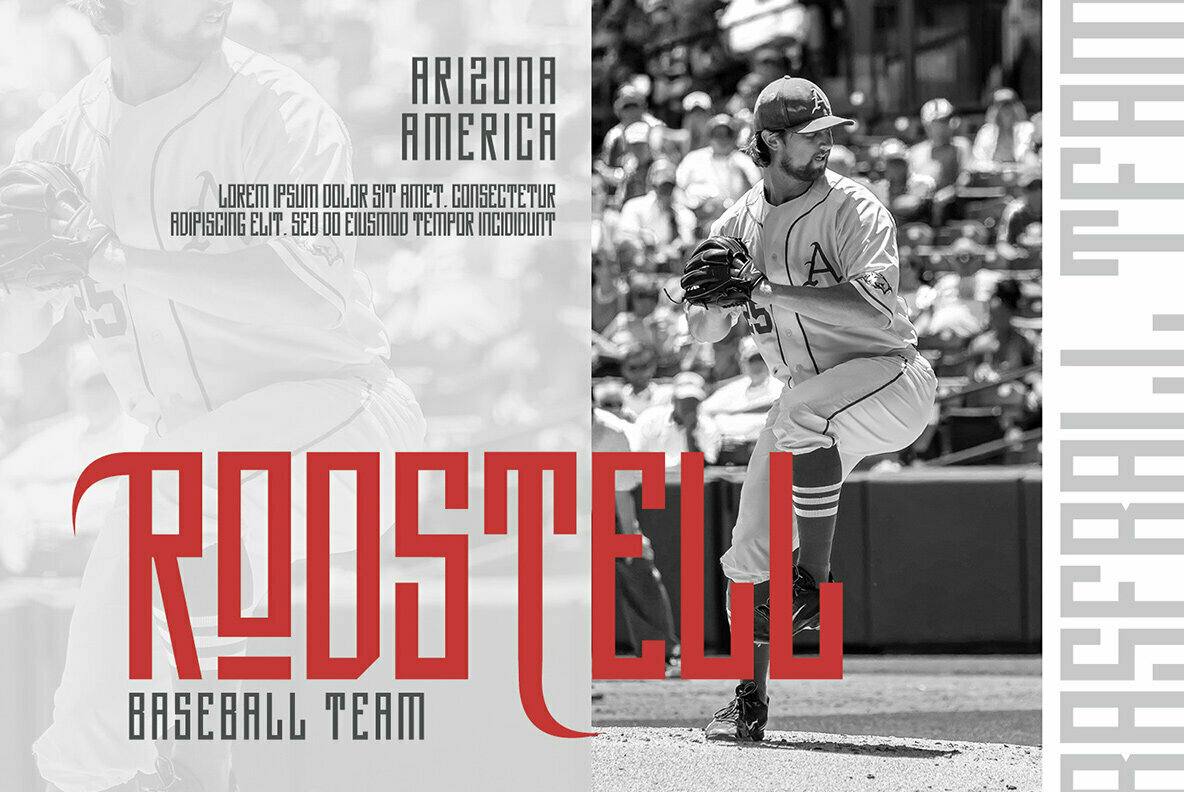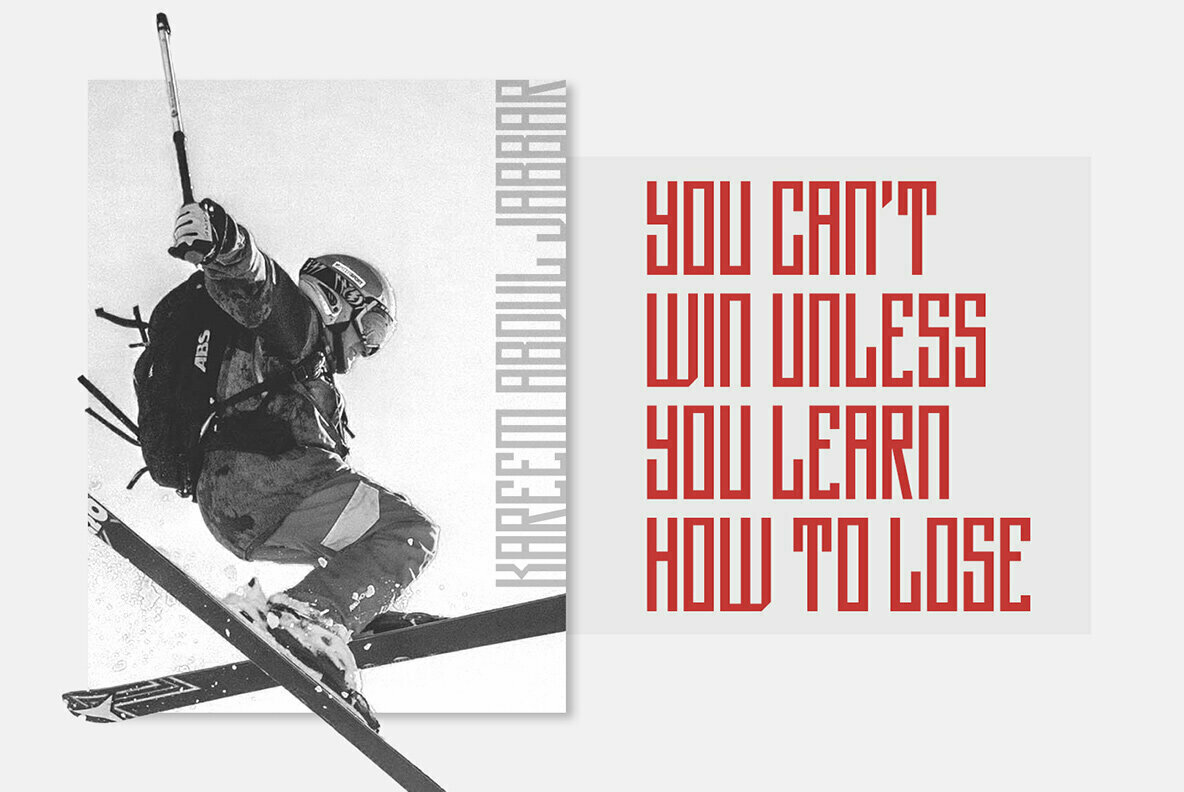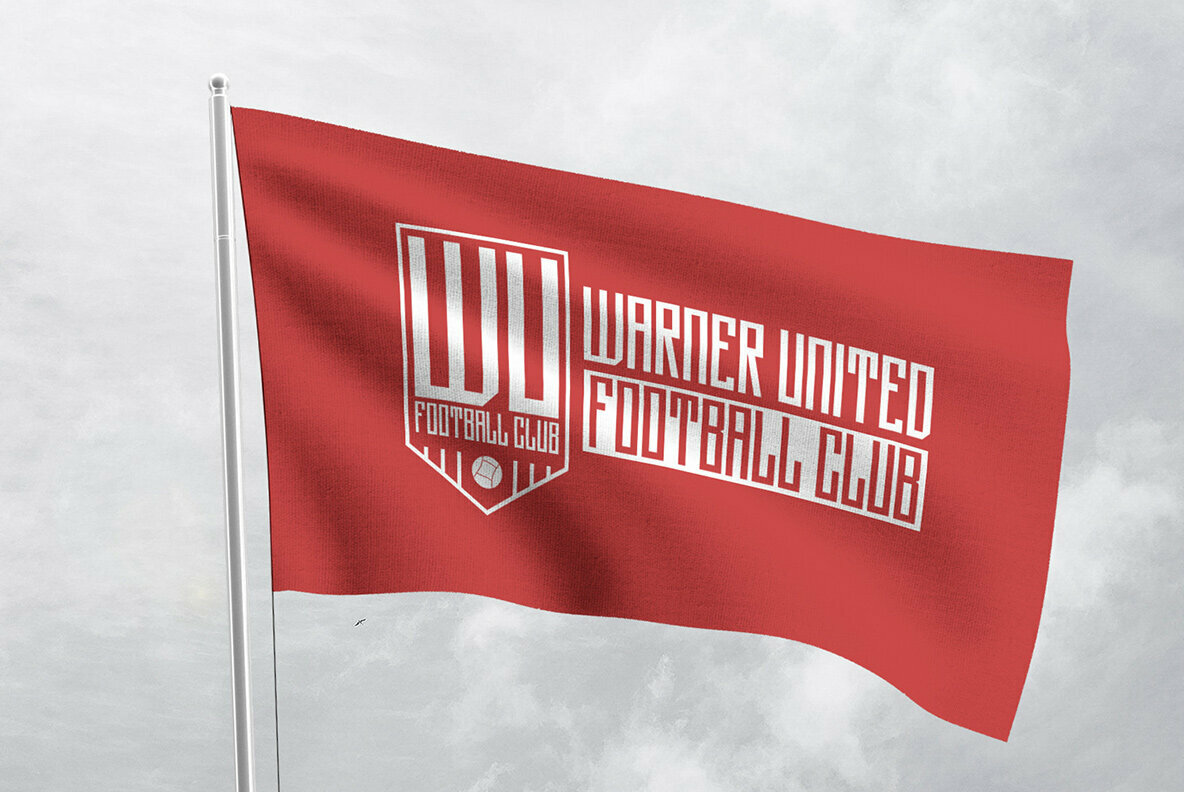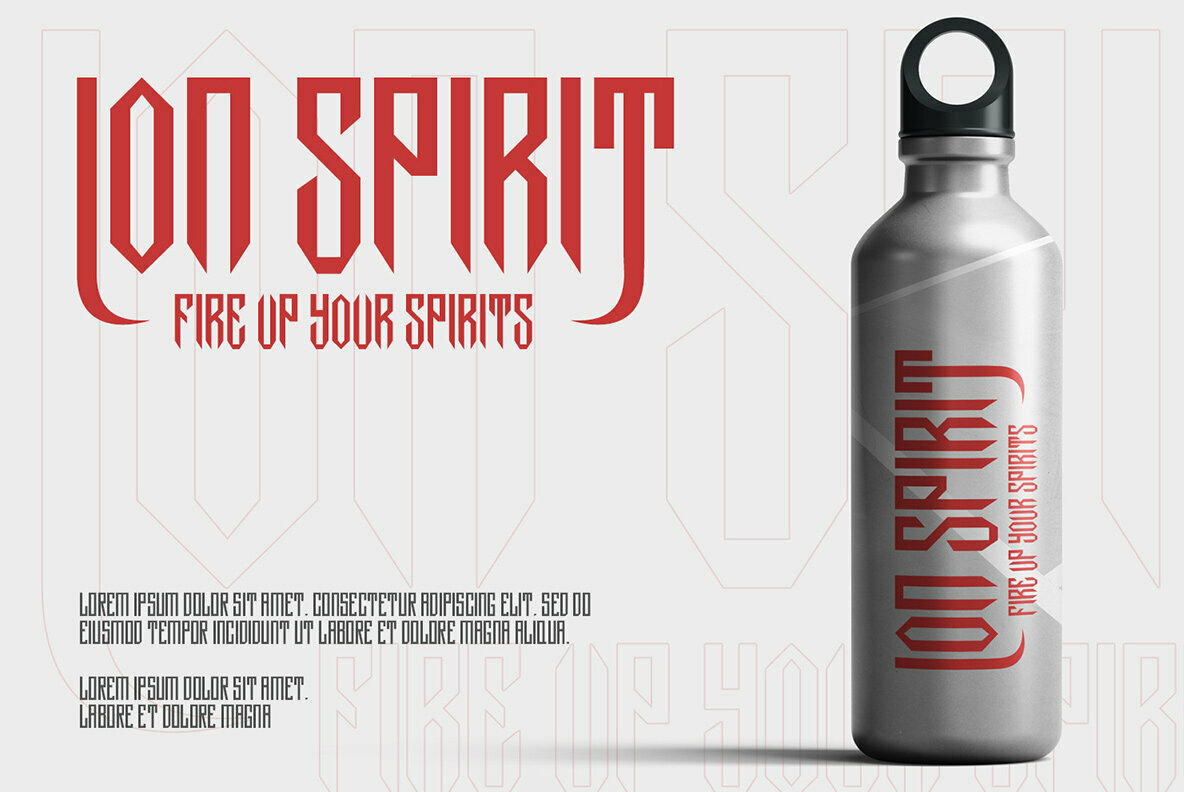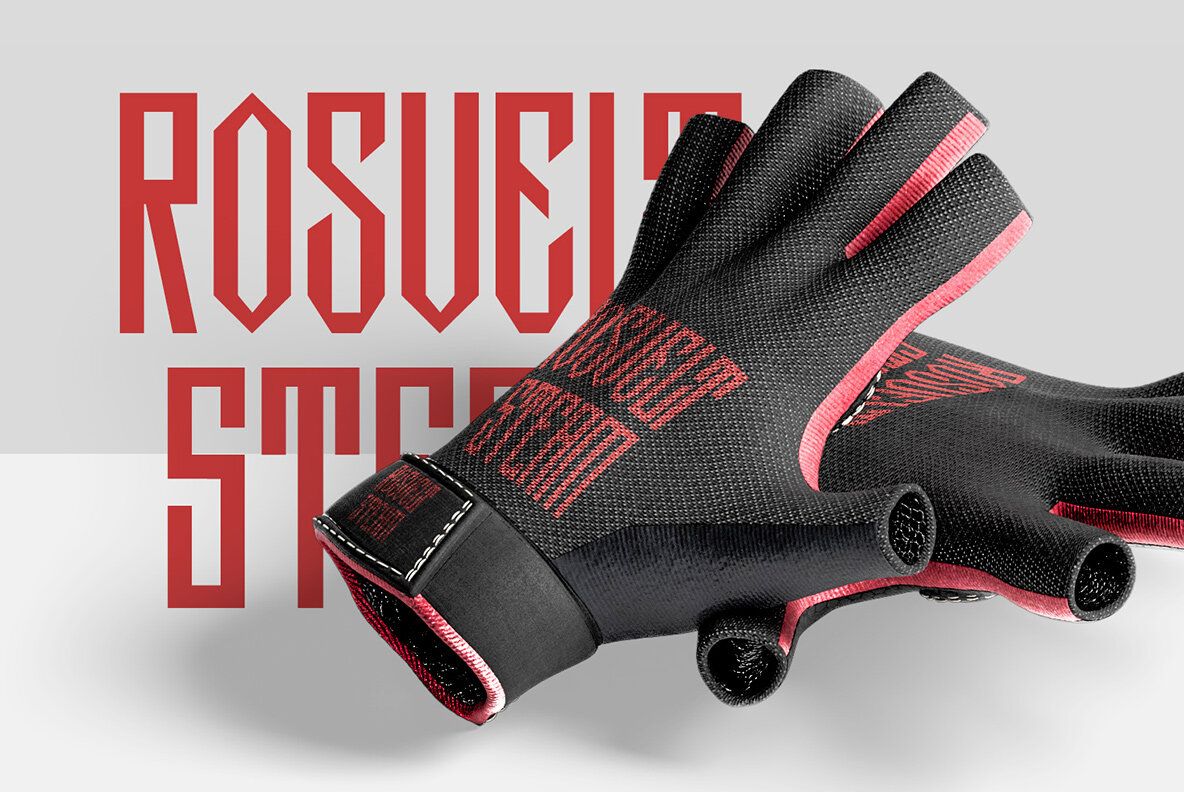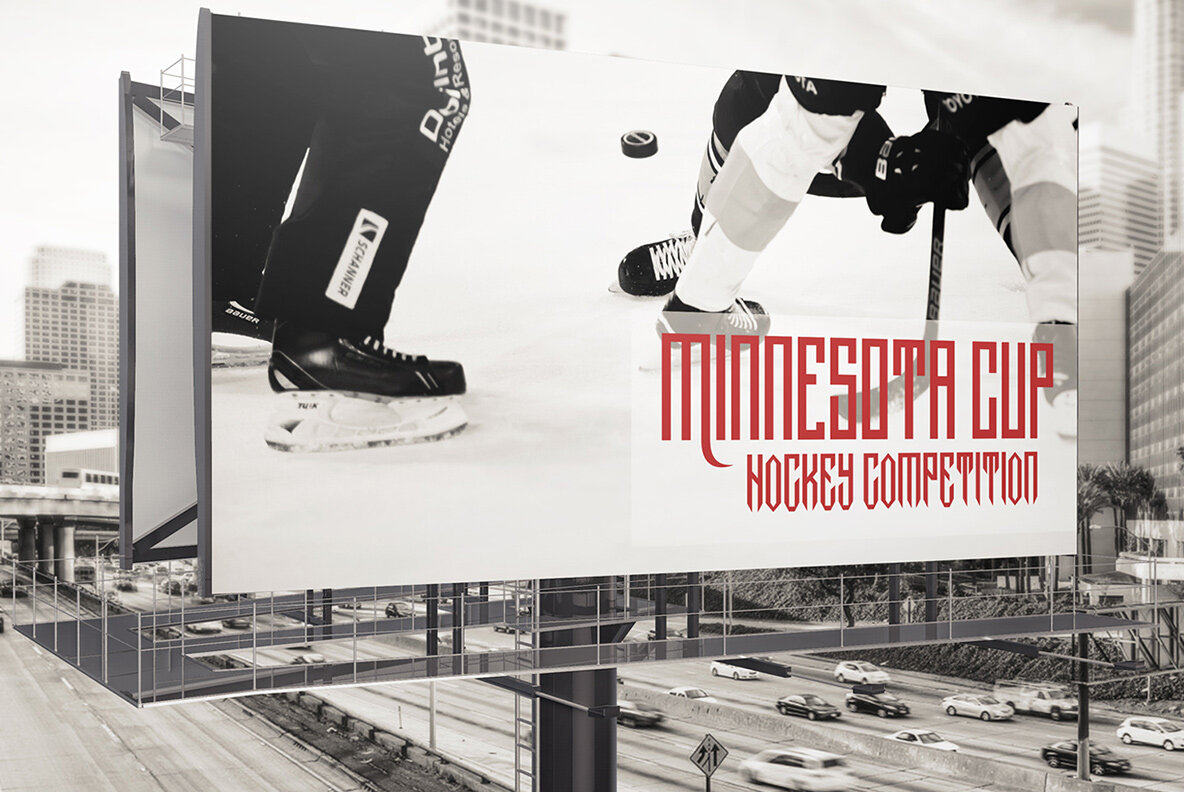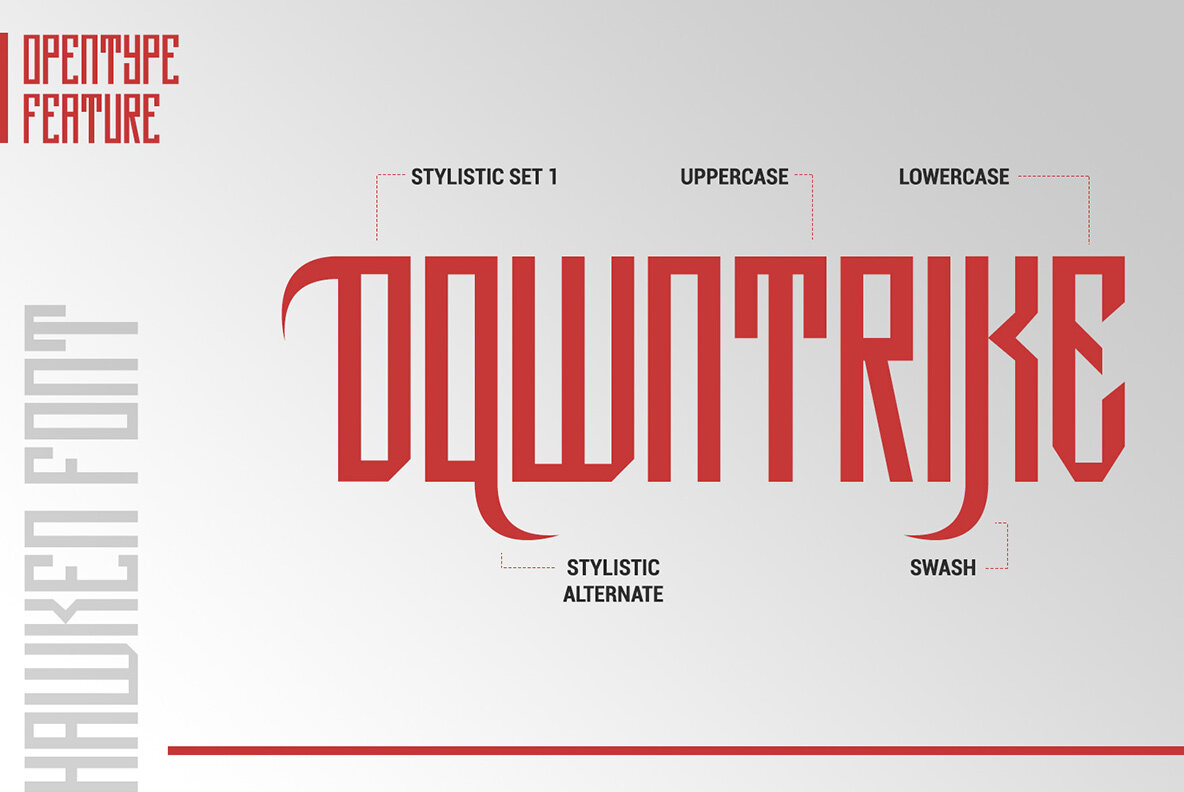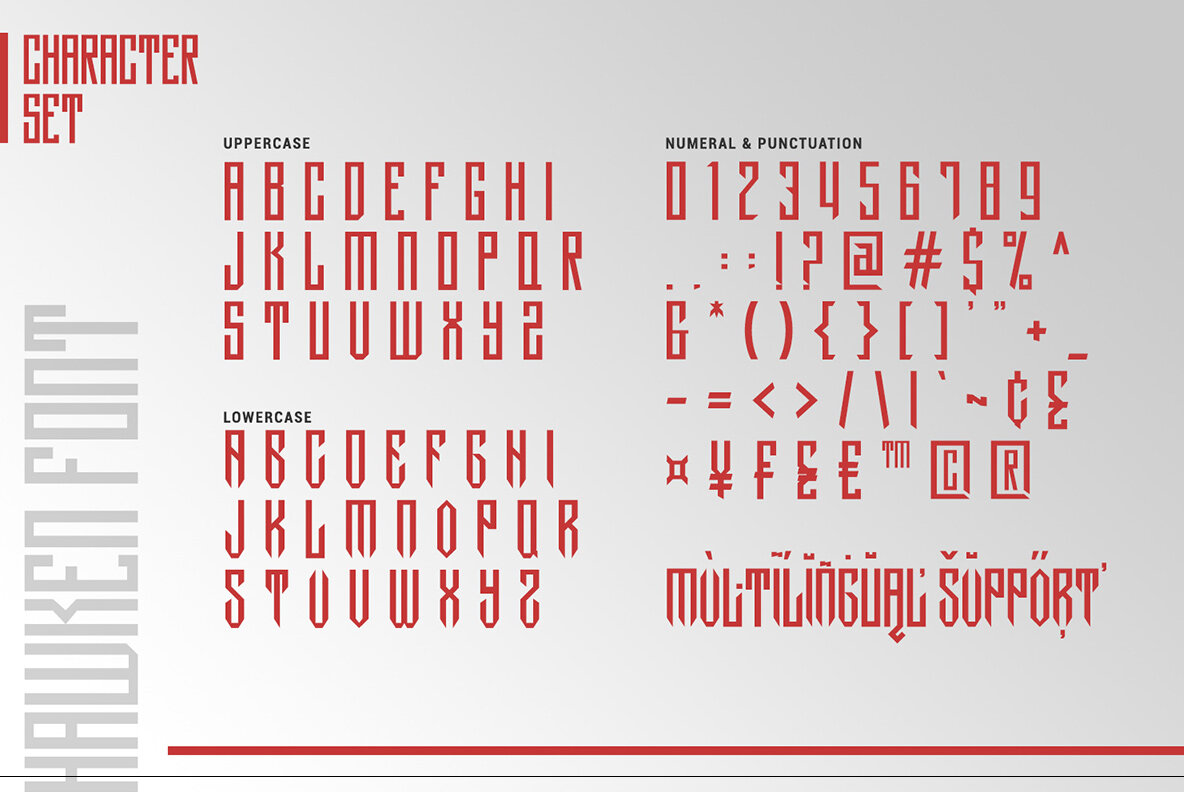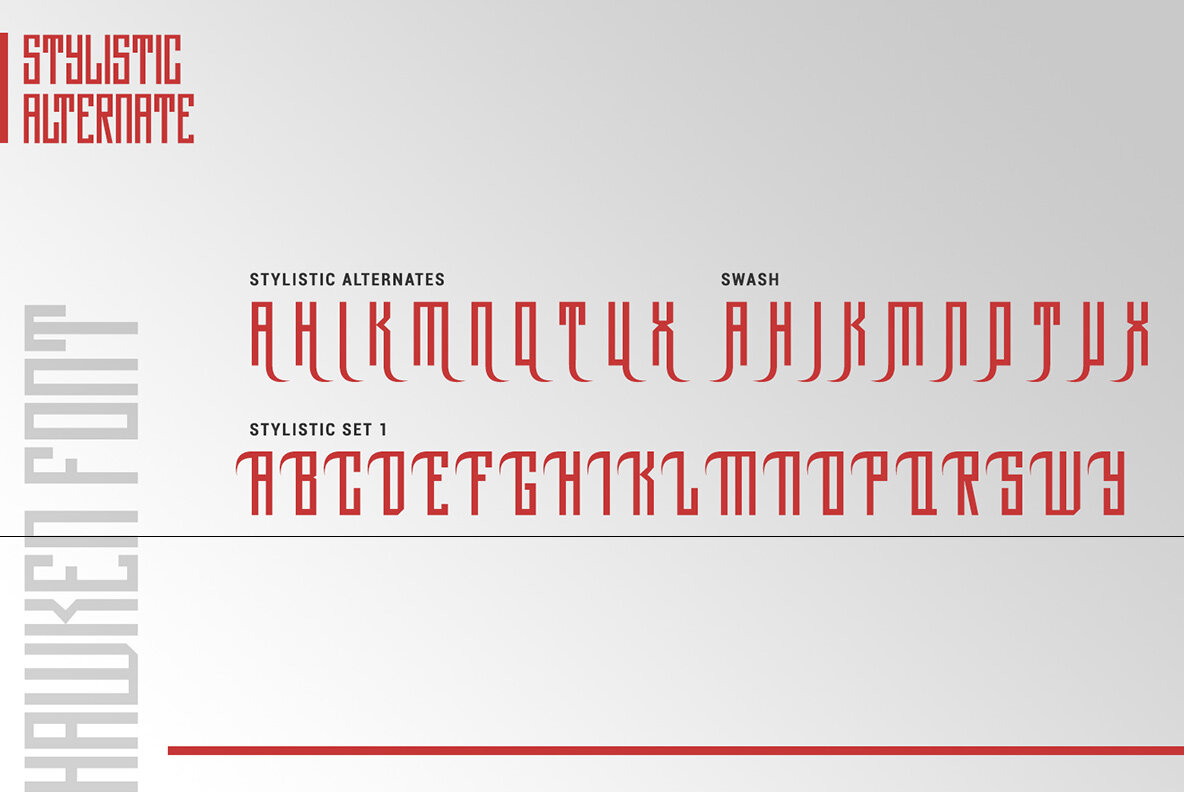
Hawken Font
Hawken
Hawken is a powerful sans serif display typeface come with sporty themes. Perfect for quotes, posters, logo, logotype, branding, business card, crafting needs, print, t-shirt, mug, merchandise, packaging, and many more.